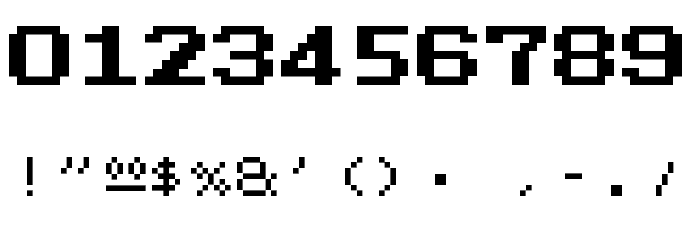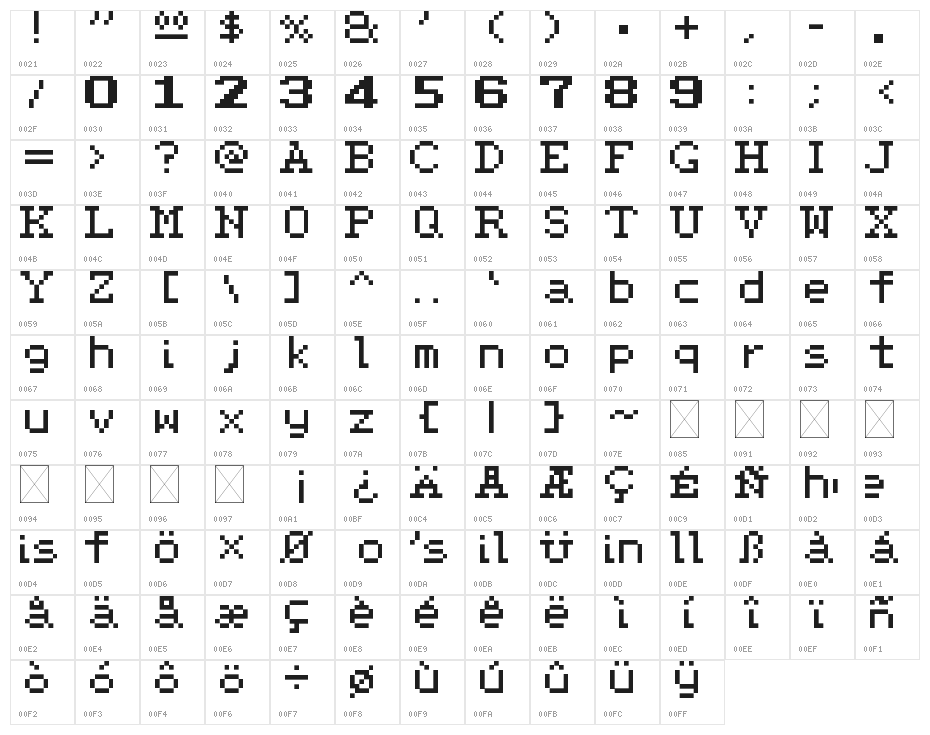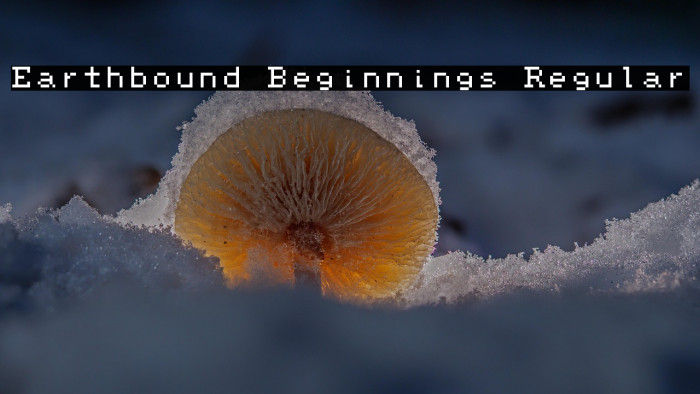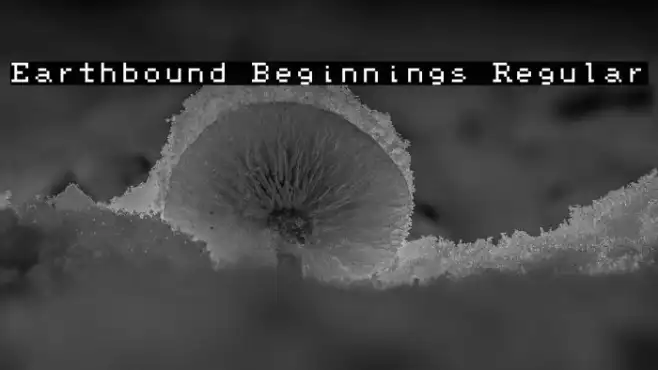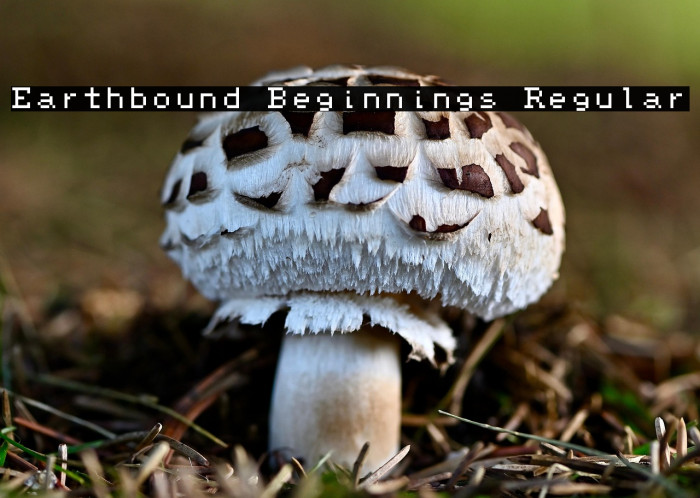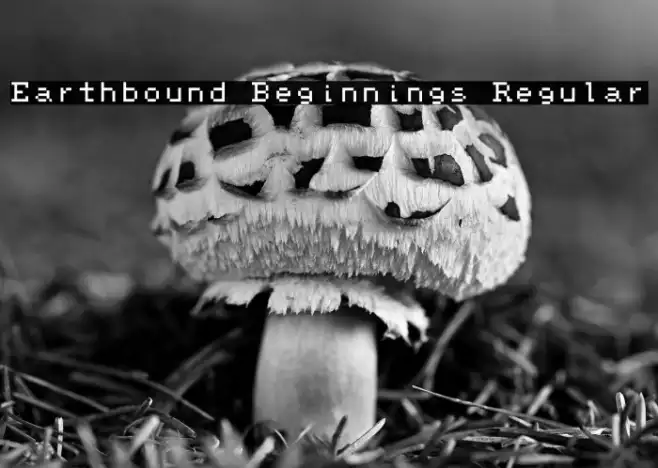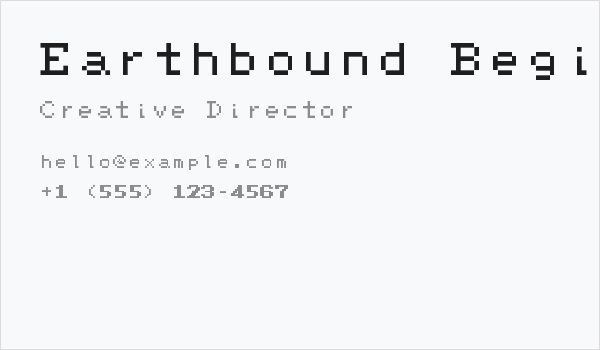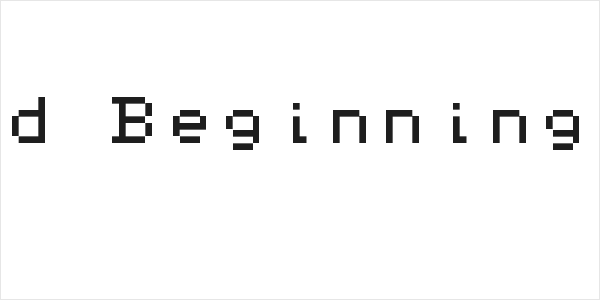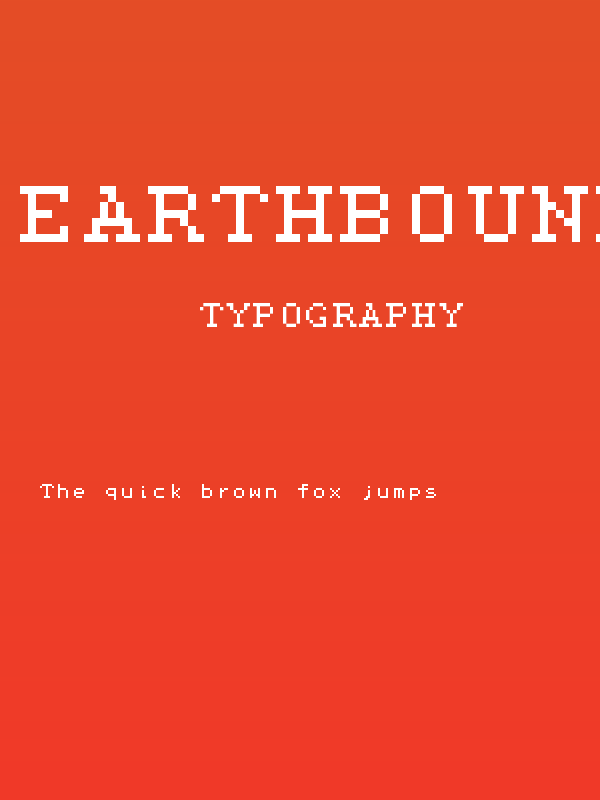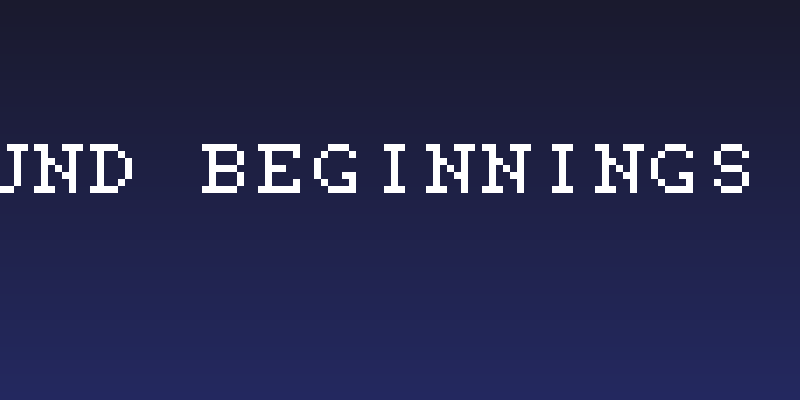
Earthbound Beginnings Regular Font
Earthbound Beginnings Regular Description
This font features a pixelated, retro style reminiscent of early video game graphics. The characters are blocky and uniform, with a consistent height and width that gives it a monospaced appearance. The uppercase letters are bold and prominent, while the lowercase letters maintain the same pixelated aesthetic, providing a cohesive look across the alphabet. Numbers and special characters follow the same design principles, ensuring readability and a nostalgic feel. The overall design is simple yet effective, making it suitable for projects that aim to evoke a sense of nostalgia or a retro gaming vibe.
Overall StyleRetro
Use CaseLogos, Headlines, Digital Art
Proposed ProjectsIdeal for retro video game designs, nostalgic-themed websites, pixel art projects, and any creative work that seeks to capture the essence of early digital graphics.